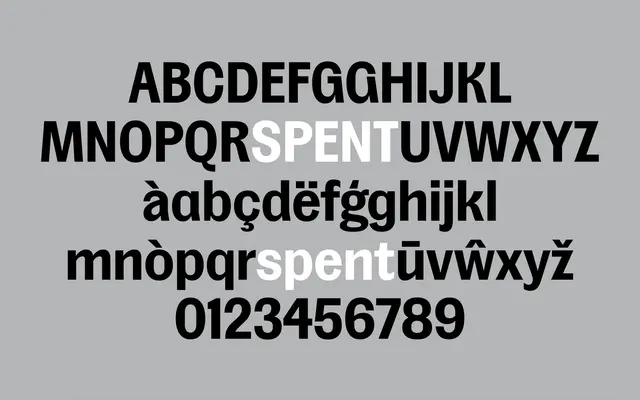
A wide-ranging American gothic sans spanning four widths and seven weights, drawn from memory rather than direct revival of any single source.
56 static styles and two variable fonts cover Compressed, Condensed, Compact and conventional widths, each running from ExtraLight to Black with matching italics. The design steps back from direct reference to classic American gothics, retaining the genre's hard-working texture and rhythm while leaving room for its own character to emerge. Opentype features include oldstyle figures, tabular figures, fractions, a spurred G and schoolbook alternates for a and g.
Drawn from memory rather than direct reference to classic American Gothics, Spent is a gothic sans in the American grotesque tradition, spanning compressed to conventional widths with utilitarian intent.